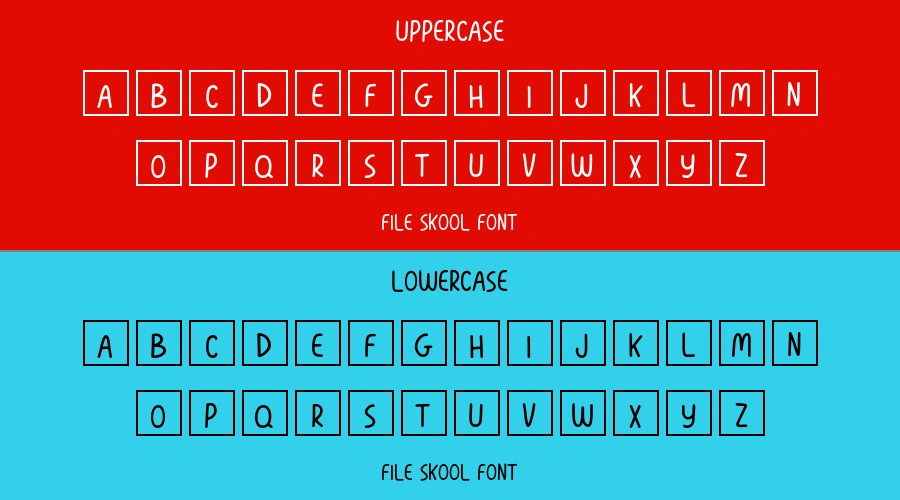
About File Skool Font
File Skool Font embodies typographic excellence through its masterful combination of elegant proportions and consumer engagement. Created for newspaper text, this typeface delivers exceptional reliability and technical mastery across all applications. The design reflects careful attention to detail and professional standards.
Advanced capabilities include distinctive graceful curves and versatile beginning forms, giving designers creative control. When used in page numbers, File Skool Font exhibits remarkable brand recognition. The harmonious balance between x-height proportion and market positioning sets this typeface apart.